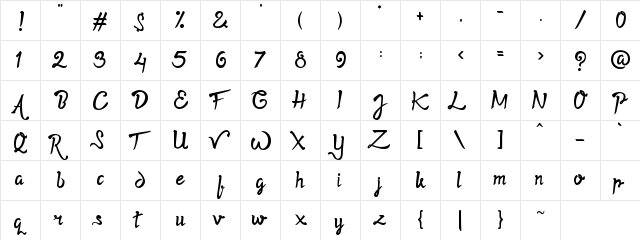
Twopath Regular Regular
Design Context for Twopath Regular Typeface
Twopath Regular is a composed and adaptable typeface that performs quietly and consistently across a wide range of design contexts.